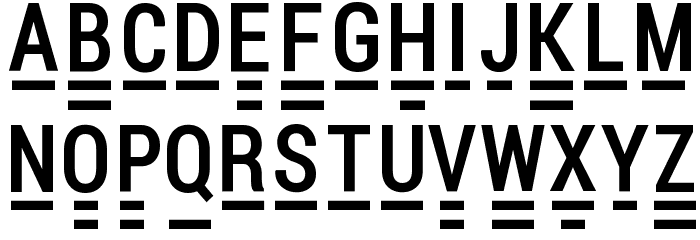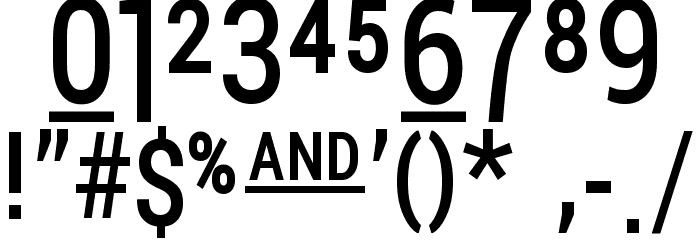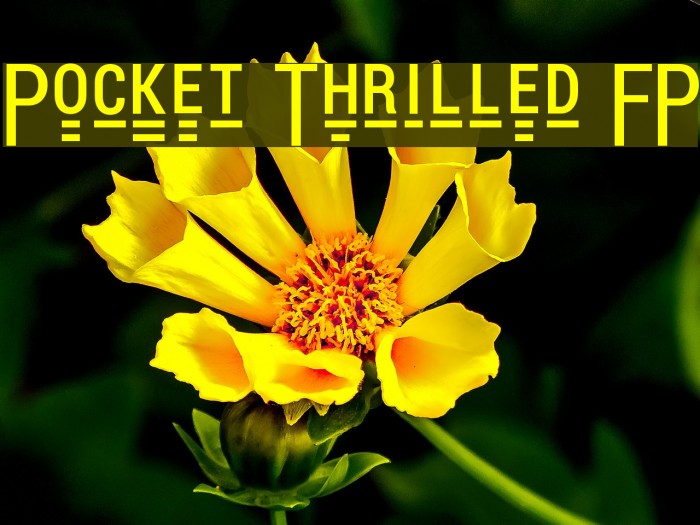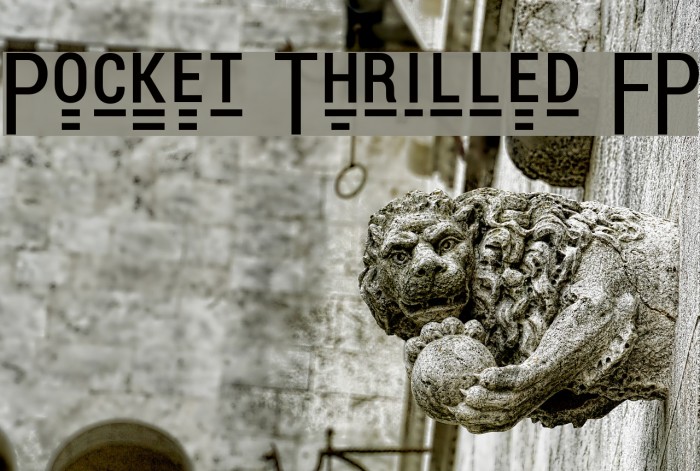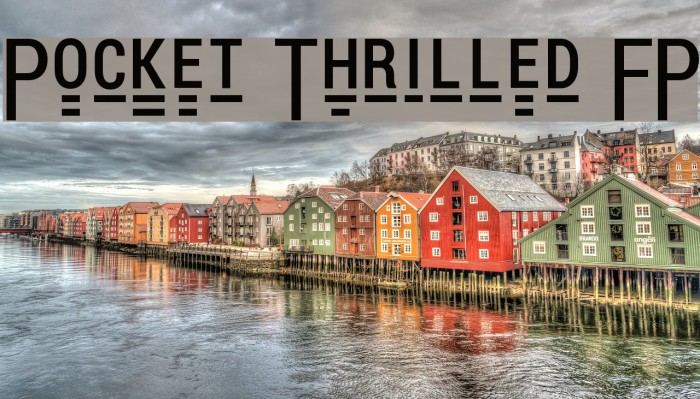
Pocket Thrilled FP Font
This font features a bold and striking design with a modern and geometric aesthetic. The uppercase letters are characterized by clean lines and a uniform thickness, creating a sense of balance and stability. The numbers and special characters maintain this consistency, ensuring a cohesive look across all elements. The font's unique feature is the use of horizontal lines beneath certain characters, adding an extra layer of visual interest and making it stand out in any design. This font is ideal for projects that require a strong and impactful visual presence.
A bold, modern font with geometric lines and unique underlining features.
- Proposed Projects: Ideal for branding, posters, headlines, and any design requiring a bold statement.